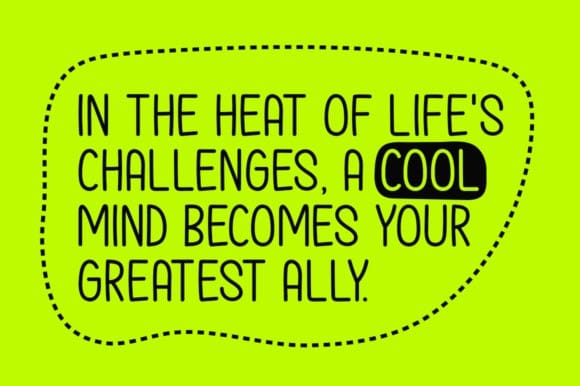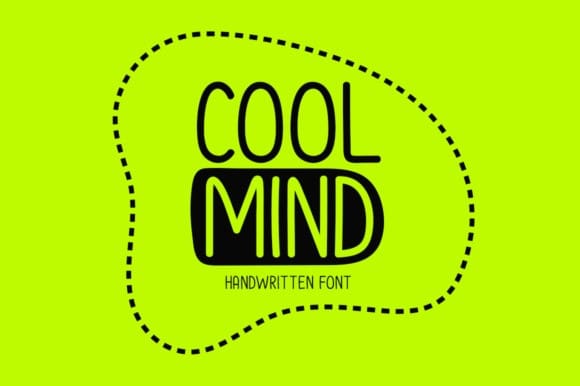
Cool Mind Font
Cool Mind Font is an adorable and straightforward handwritten typeface. Add it to your original ideas to see how it helps them stand out as it can be readily suited to a huge range of projects.